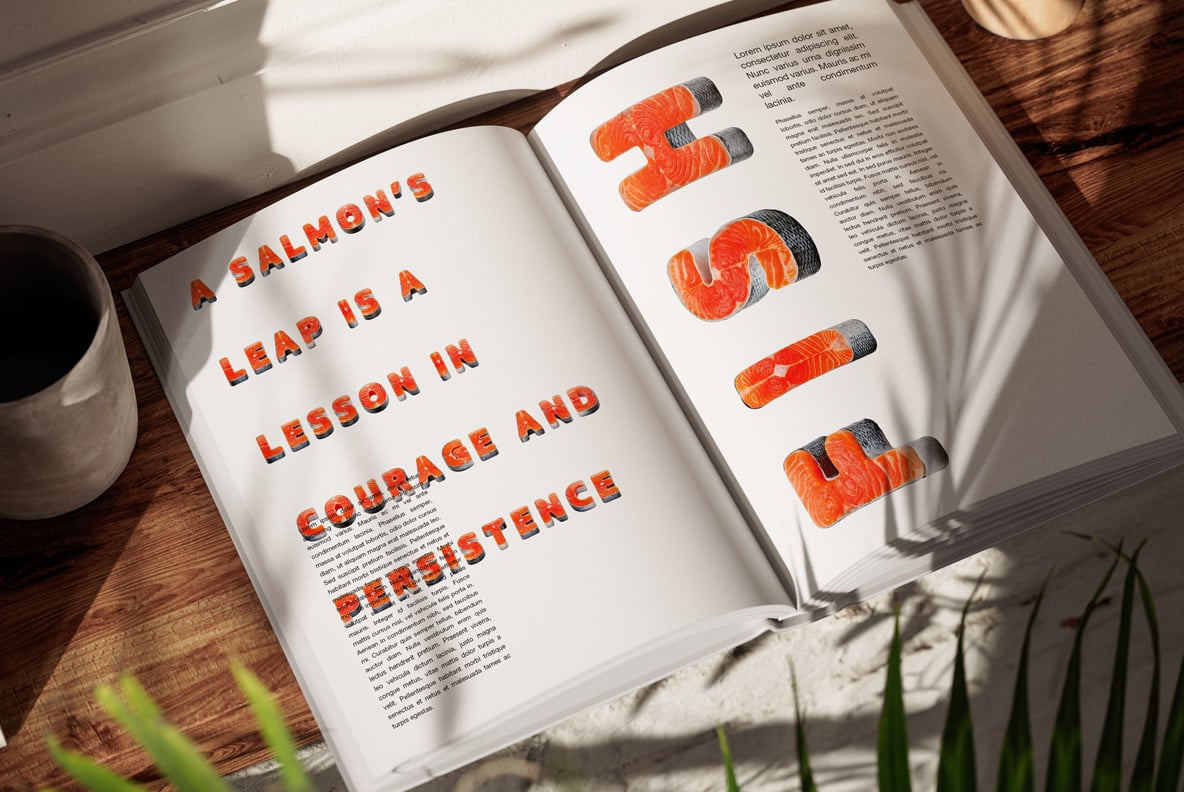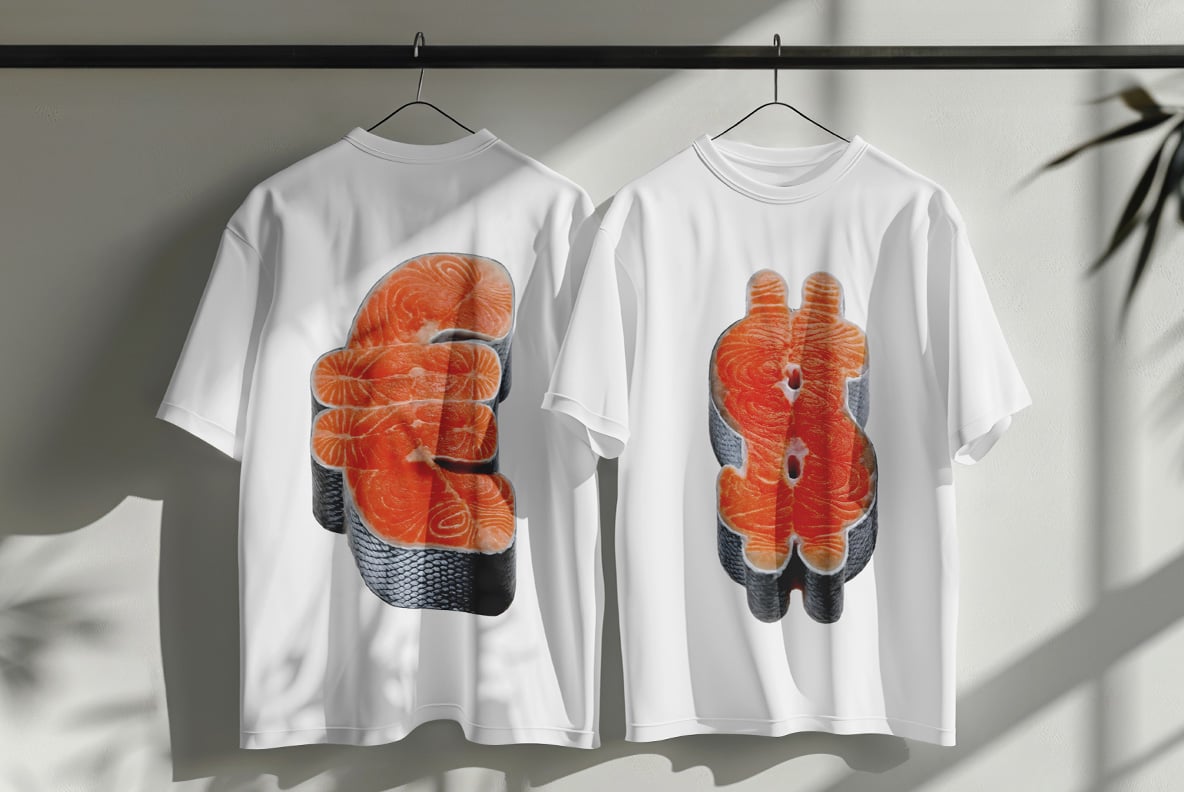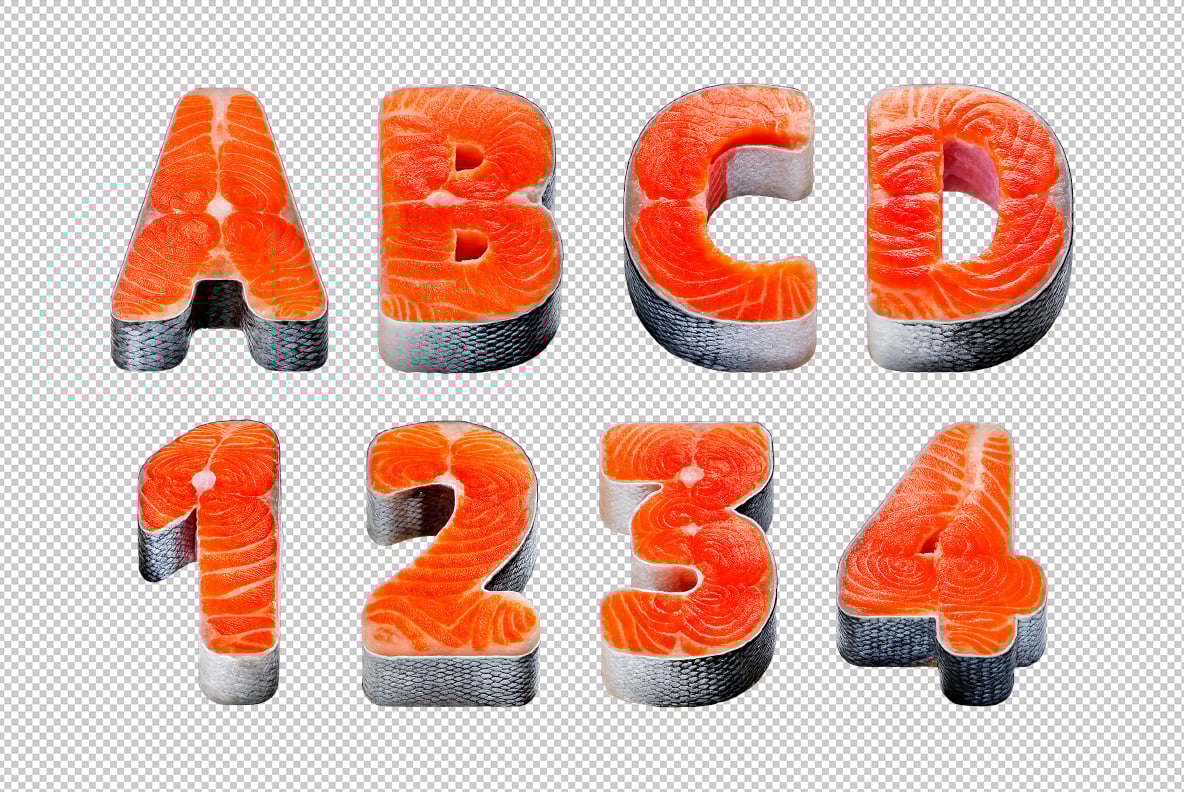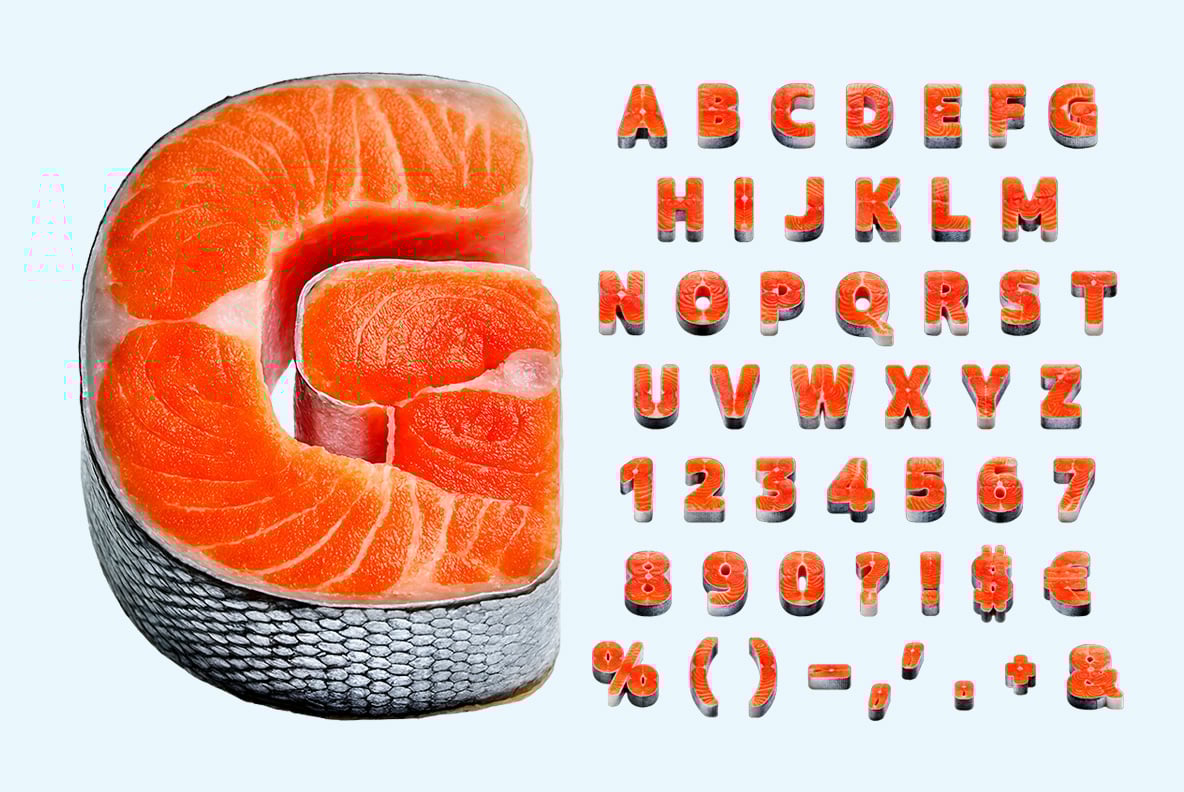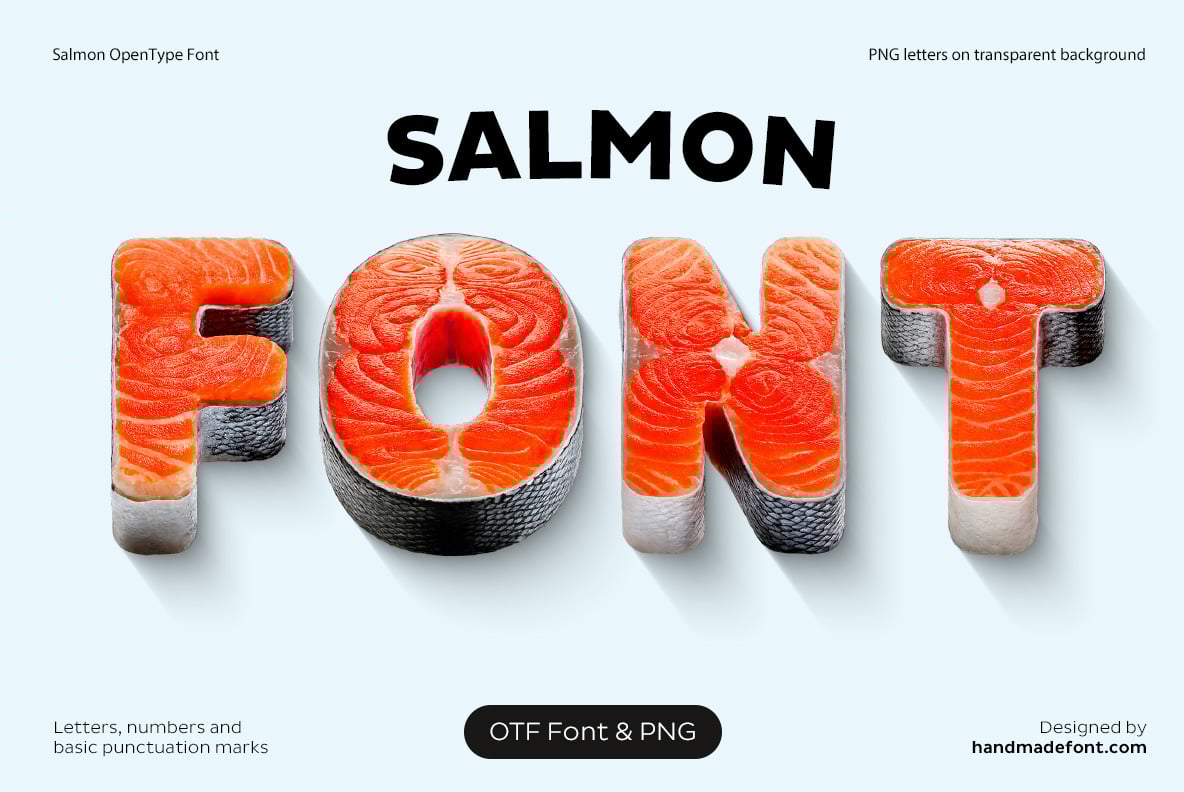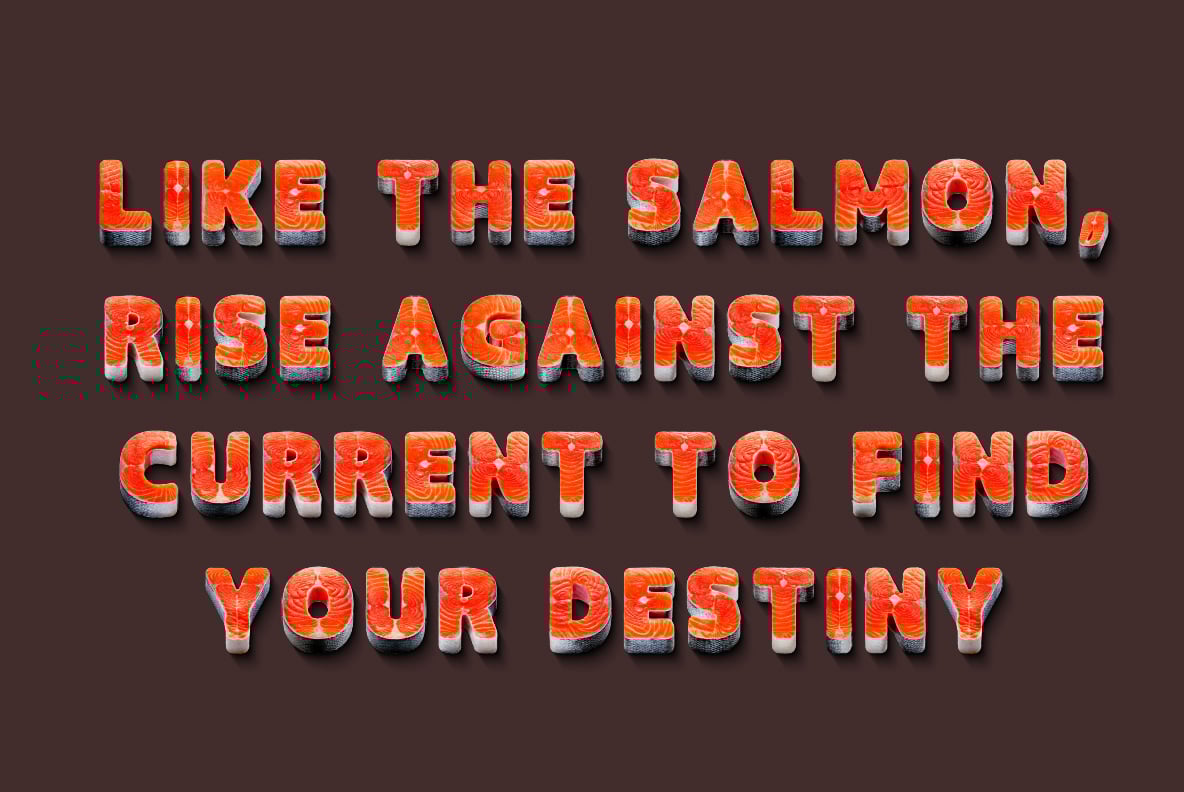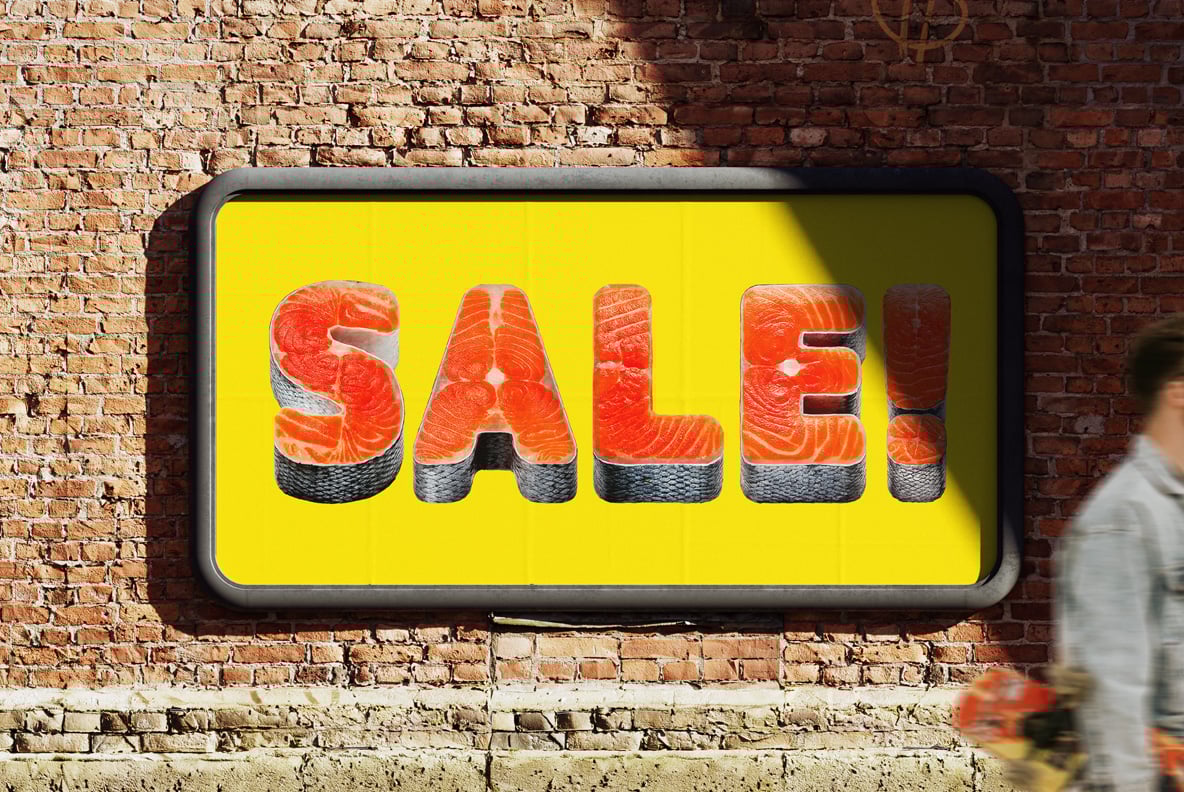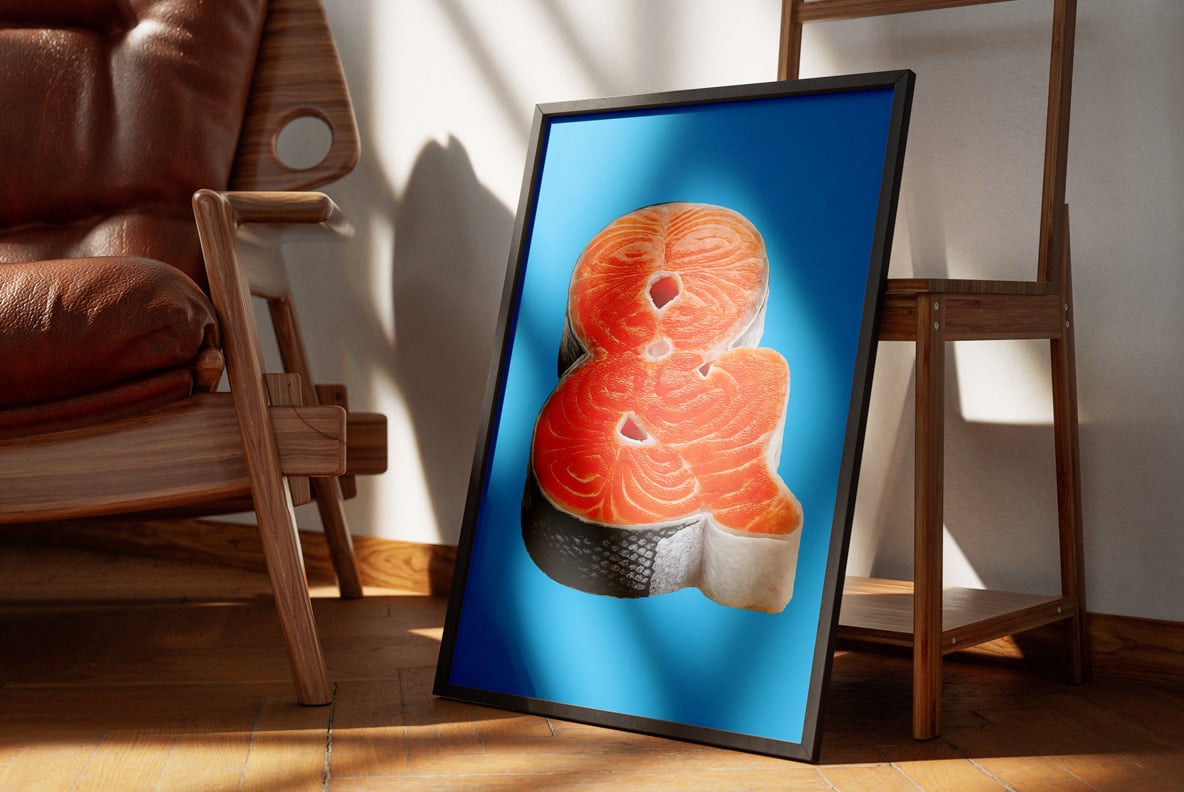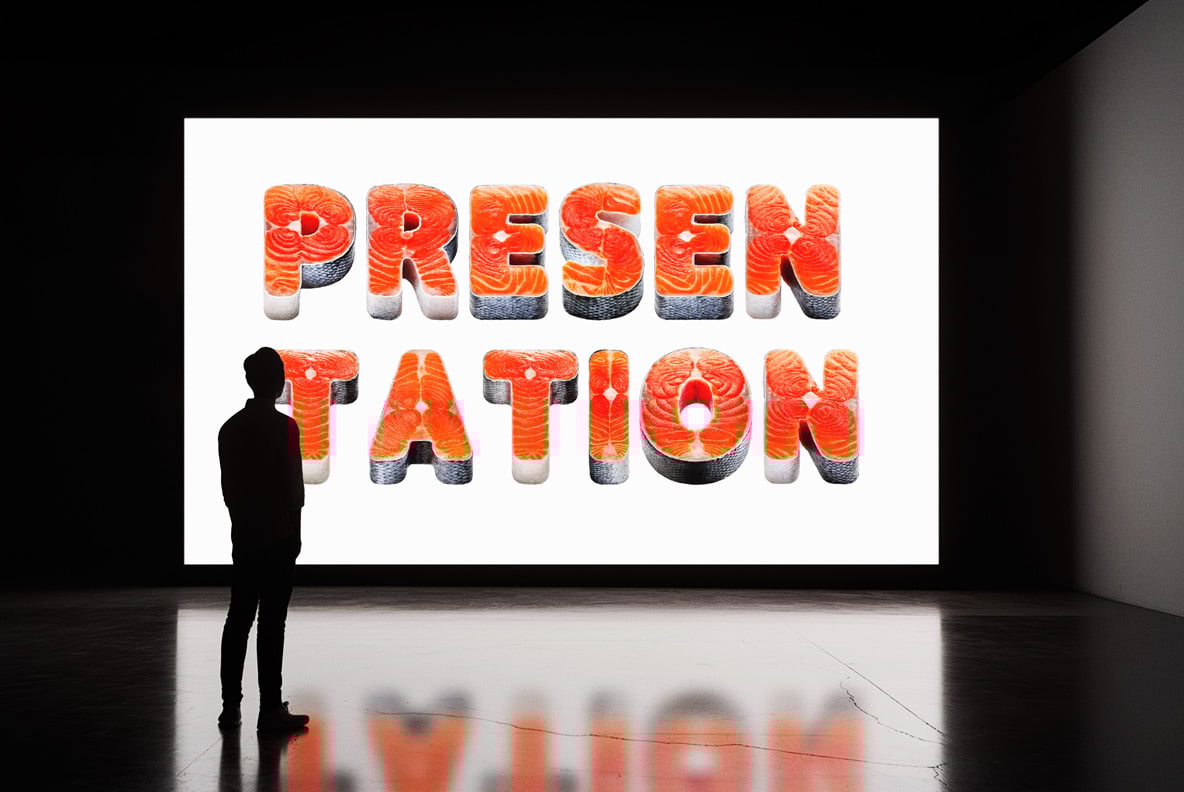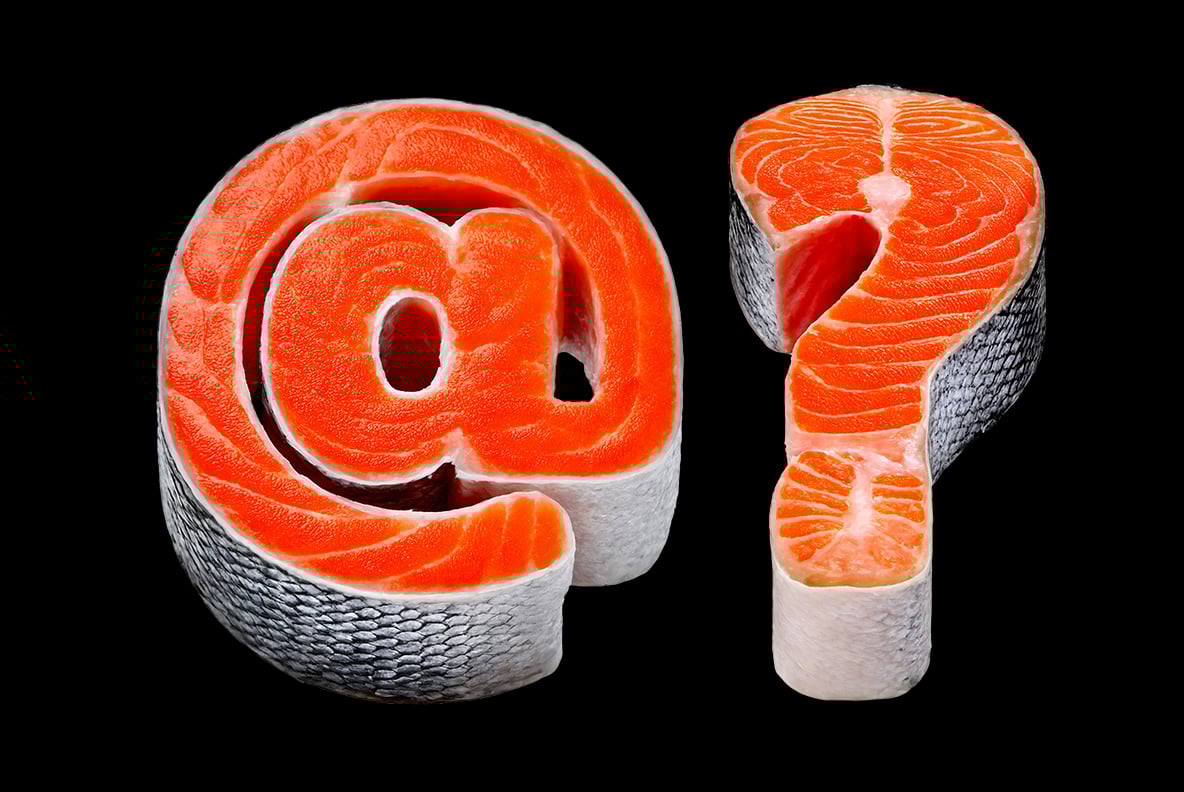
Salmon Font
Fish meets typography in the vibrant and unique "Salmon Font," a creative masterpiece where each letter is crafted from rows of salmon steaks. This salmon-inspired alphabet captures the essence of food typography, blending the textures and hues of fresh fish into playful lettering. Perfect for seafood brands, culinary designs, or eye-catching visuals, this fish typography brings a flavorful twist to the art of letters. The intricate details of the salmon steaks make each character a work of edible art. Dive into the world of salmon lettering and add a splash of creativity to your projects with this one-of-a-kind font design.
A high definition OpenType Font. Contains uppercase characters, numerals and basic punctuation. (Draw height roughly 800 pixels). All letters and glyphs that comprises this font you can see on the preview.